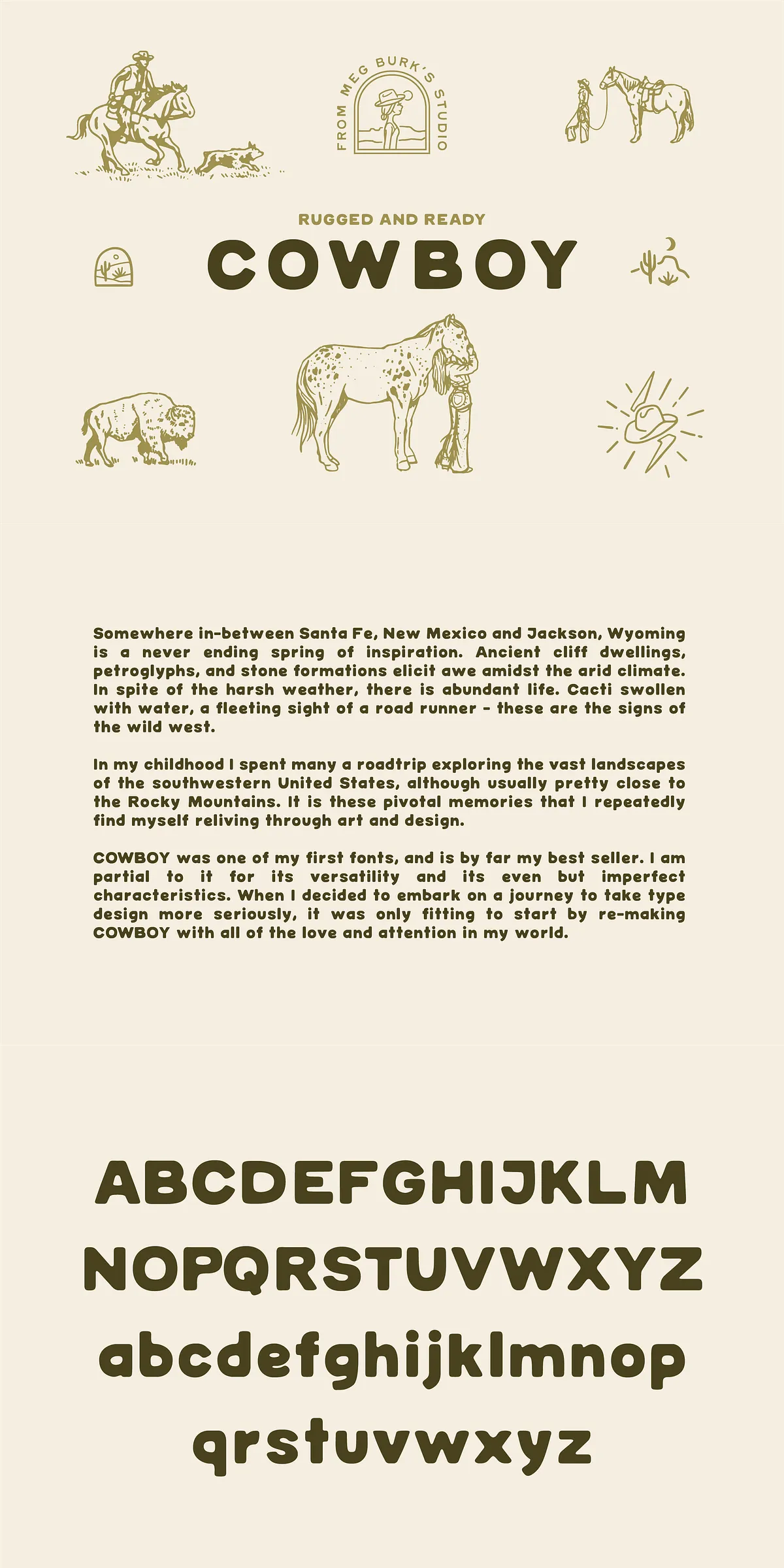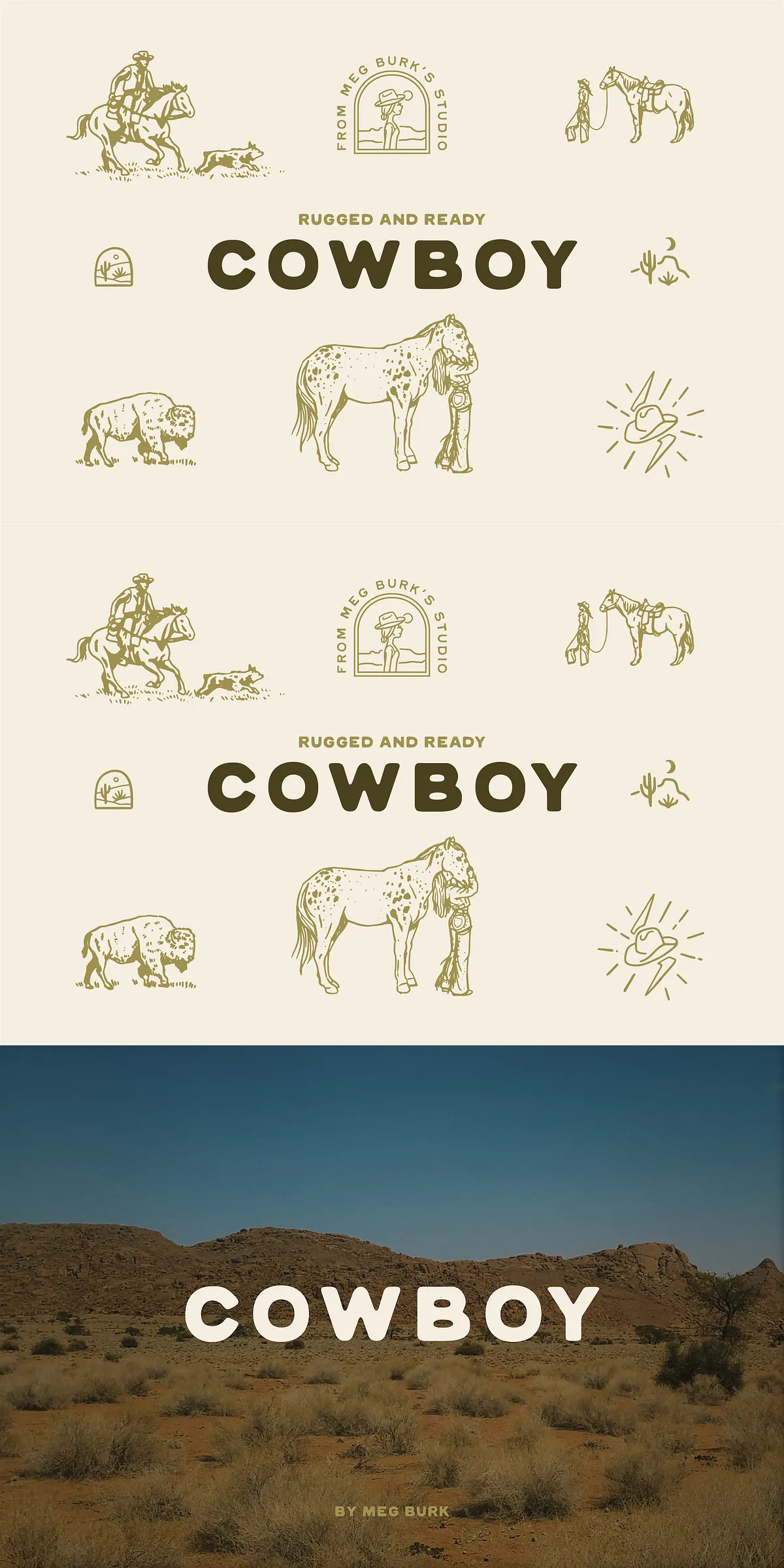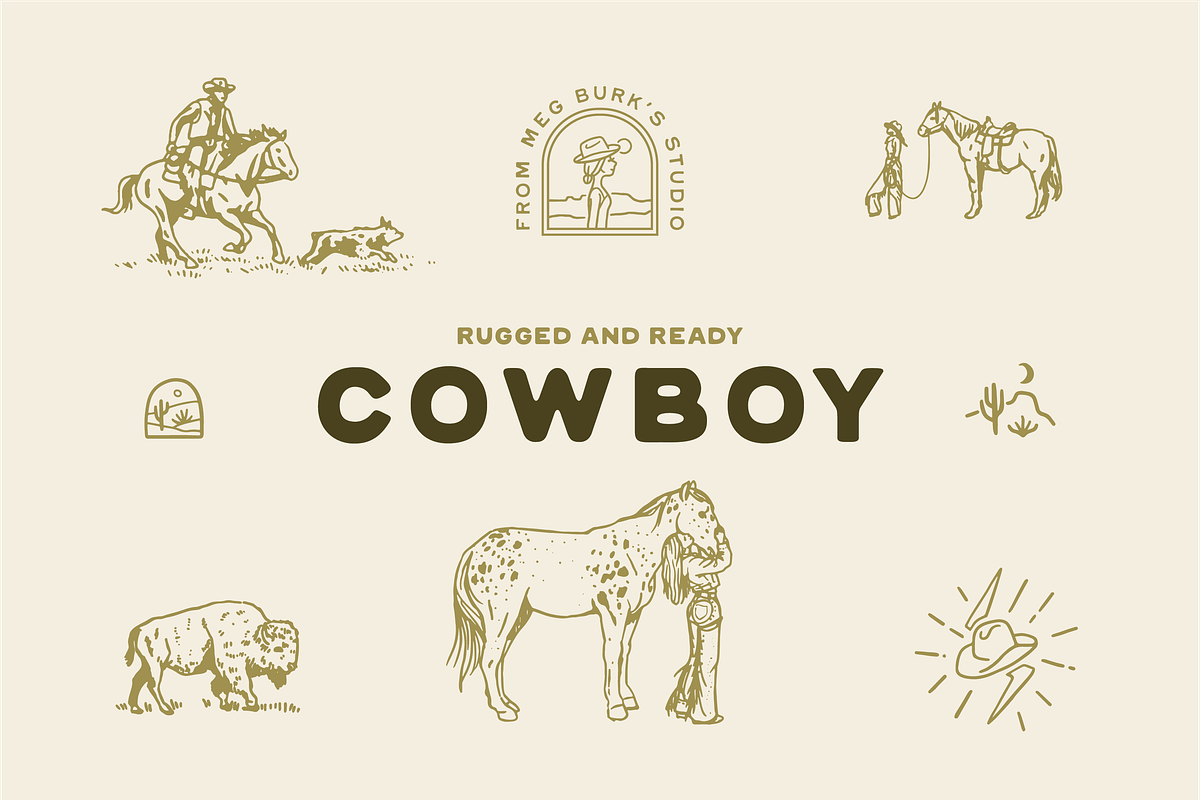
Meet COWBOY — a bold, characterful sans-serif typeface forged in the vast deserts, ancient cliff dwellings, and sun-bleached stone formations of the American Southwest. Designed with raw authenticity, this hand-drawn font captures the spirit of the wild west: untamed, resilient, and deeply human.
COWBOY isn’t about perfect symmetry. It’s about presence. Each stroke carries the weight of a road trip across New Mexico’s arid plains, the echo of a coyote howl at dusk, and the sudden flash of a roadrunner darting across the horizon. Created with care, precision, and a touch of wanderlust, COWBOY is more than a font — it’s a memory, a journey, a feeling.
Unlocked Language Power: Complete Latin Support
Now fully equipped for global creativity, COWBOY includes comprehensive coverage for Spanish, German, French, and most Latin-based languages. Whether you’re designing for international audiences or crafting a bilingual label, COWBOY delivers character and clarity across languages.
- Full lowercase letters: Now fully functional for expressive text layouts.
- Accented characters: Includes ñ, ç, ä, ö, é, ü, and more — ideal for French and German typographic needs.
- Extended character set: Covers nearly every essential Latin character, punctuation, and symbol.
Fueled by Memory, Crafted with Heart
For the designer behind COWBOY, every character is a personal homage to childhood summers spent navigating the rugged terrain of the Rocky Mountains. From the silent majesty of petroglyphs to the life blooming in dry canyons, the desert isn’t empty — it’s alive with quiet strength.
Though originally one of the first fonts created, COWBOY has grown into a bestseller not because of trend, but because of truth. It reflects a deep love for the natural world, a passion for handcrafted design, and the belief that type should carry soul.
Reimagined with Love: Updated Vectors & Alternate Glyphs
This new version of COWBOY is not just a refresh — it’s a rebirth. Every vector has been carefully redrawn and upgraded, maintaining the original character while adding modern precision.
- Original vectors as alternate glyphs: These aren’t just decorative — they function like dingbats, embedded within the font for creative reuse. Use them as icons, borders, or decorative flourishes.
- Expanded glyph repertoire: Includes new alternate shapes, swashes, and stylistic variants to create rich, varied compositions.
- Manual control: Access them via the OpenType features panel or glyphs panel in your design software — full creative freedom at your fingertips.
The Power of Imperfection in Design
COWBOY thrives where perfection fails. Its intentional irregularities — slight wobbles, uneven lines, and natural pressure variations — prevent visual fatigue. These aren’t errors. They’re design choices that make your work feel alive, authentic, and human.
Best Practices for Maximum Impact
- Use uppercase generously: Let letters breathe with ample spacing. Avoid tight tracking — let the personality shine.
- Pair with clean sans-serifs: Balance COWBOY’s texture with a minimalist body text font for clarity and contrast.
- Use for branding & packaging: Ideal for coffee roasters, craft breweries, outdoor gear, western boutiques, and music merch.
- Perfect for headlines & titles: Use in posters, invitations, album art, and event signage where boldness matters.
Use COWBOY in Every Story You Tell
Whether you’re launching a new brand, creating a festival flyer, or designing an indie album cover, COWBOY brings a tangible sense of place. It whispers of open skies, dusty trails, and quiet moments of awe.
Top Use Cases for COWBOY Font
- Brand Identity: Create a lasting first impression with a name that feels real, grounded, and unforgettable.
- Merchandise & Apparel: Apply on t-shirts, hats, and tote bags for instant western aesthetic authenticity.
- Menu & Packaging Design: Elevate food and beverage labels with a sense of craftsmanship and heritage.
- Editorial & Zine Layouts: Break the digital monotony with hand-drawn flair.
- Web & Digital Displays: Use SVG or WOFF/woff2 version for crisp rendering on websites and animations.
Design with Intention. Create with Memory.
COWBOY is more than a font. It’s a tribute to the untamed beauty of the American West and the quiet strength of handmade design. Every letter was drawn with a purpose — to inspire, to evoke, to connect.
So if you’re standing on a cliff overlooking a deep canyon, or just scrolling through a design file at night — take a breath. Look around. Feel it.